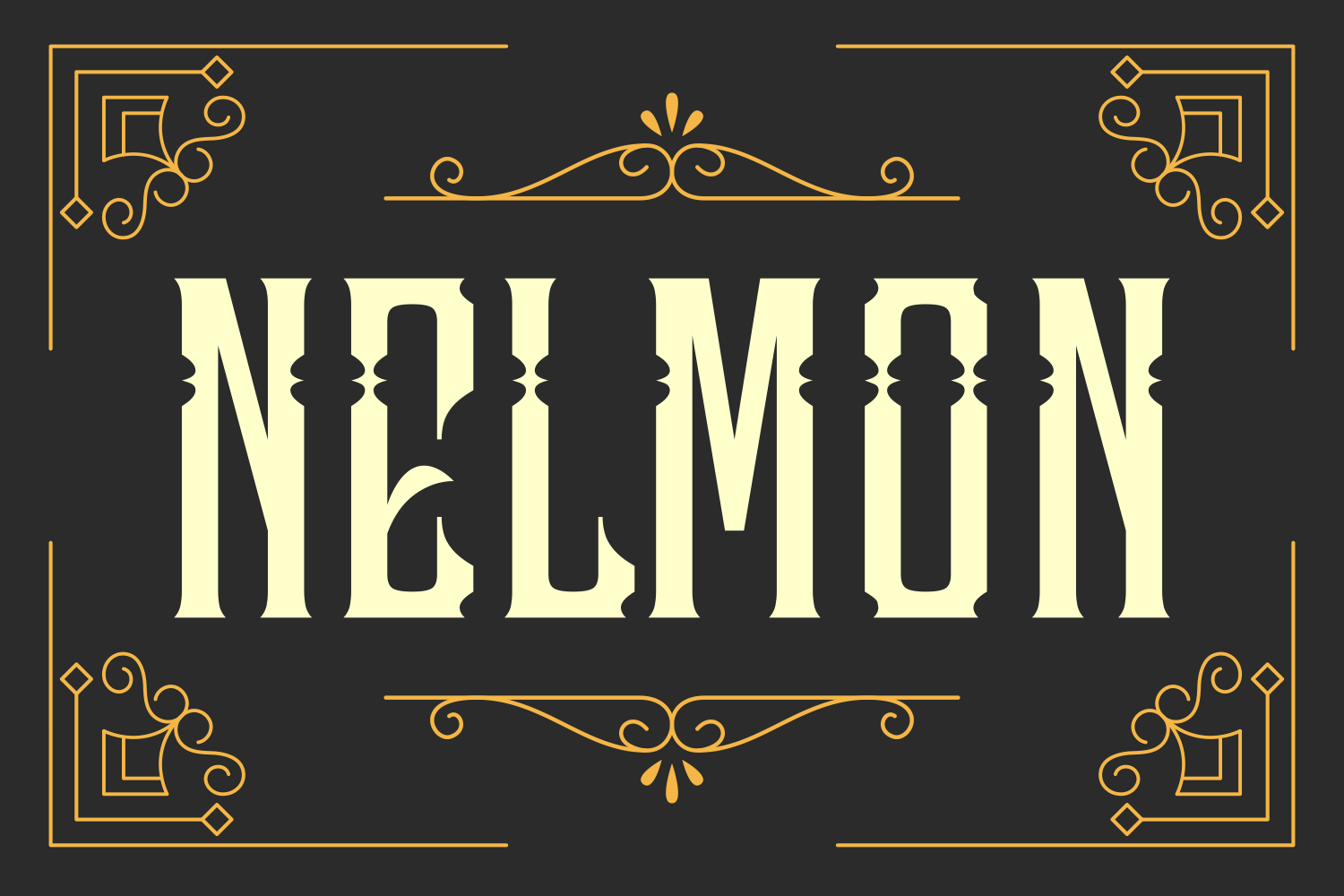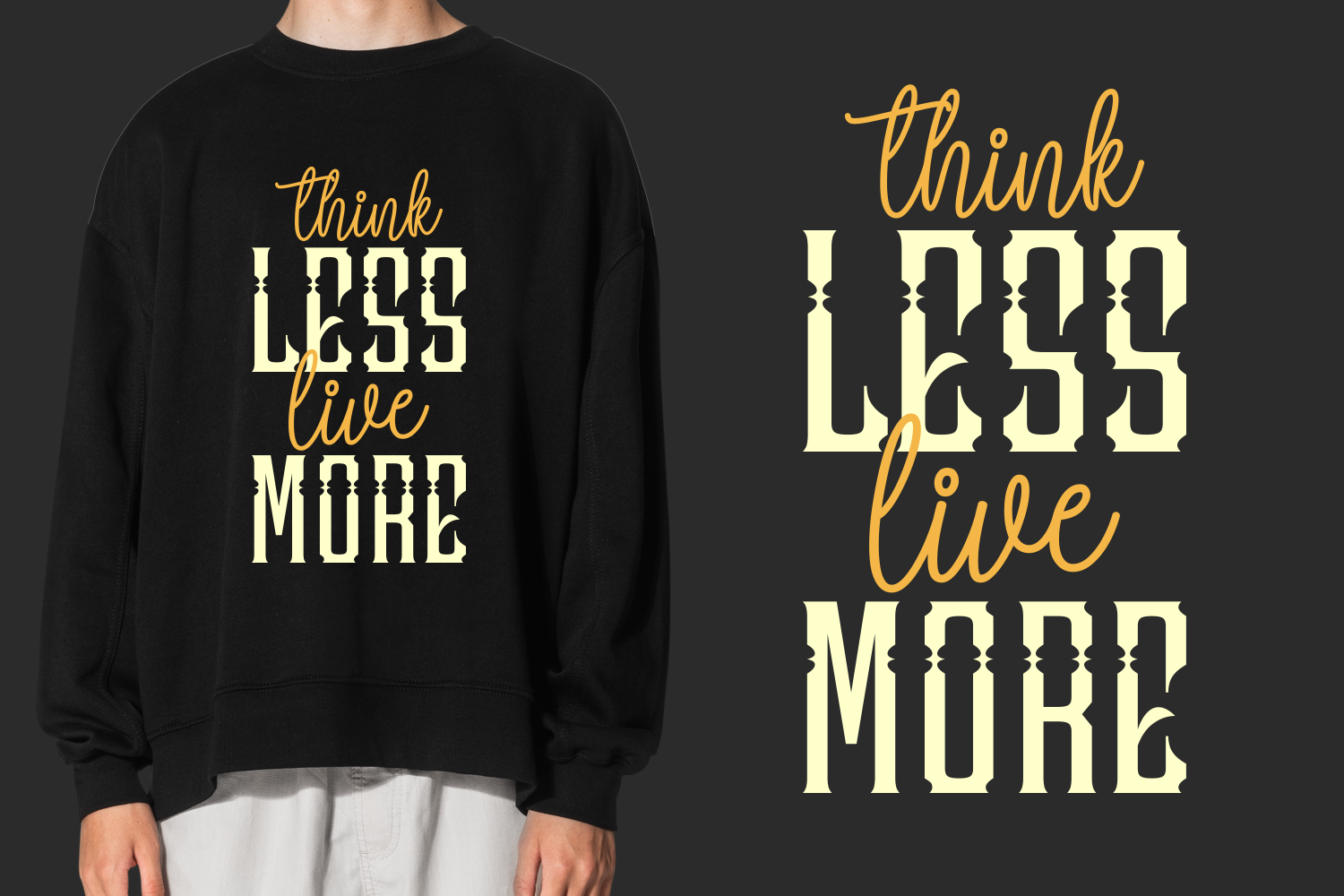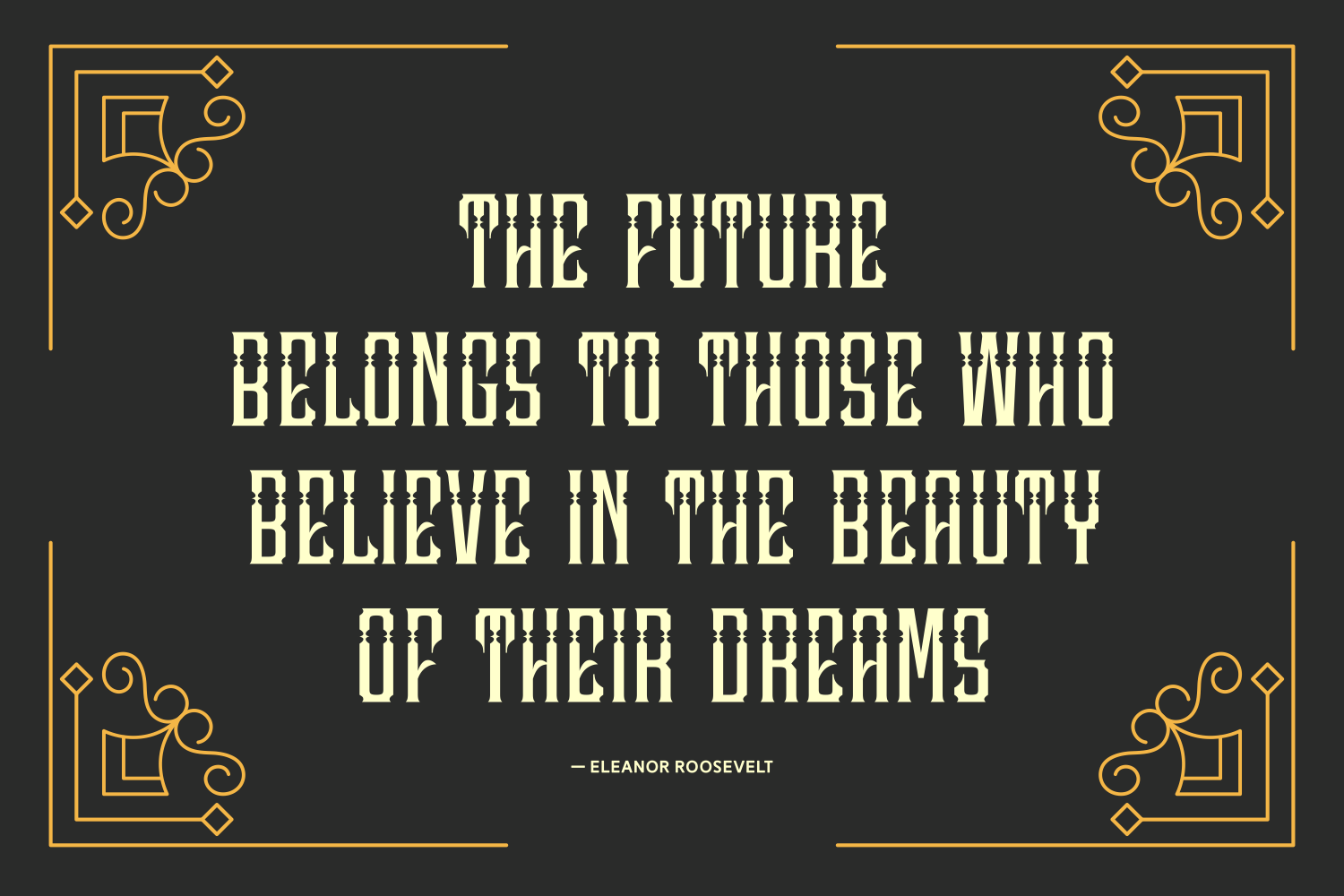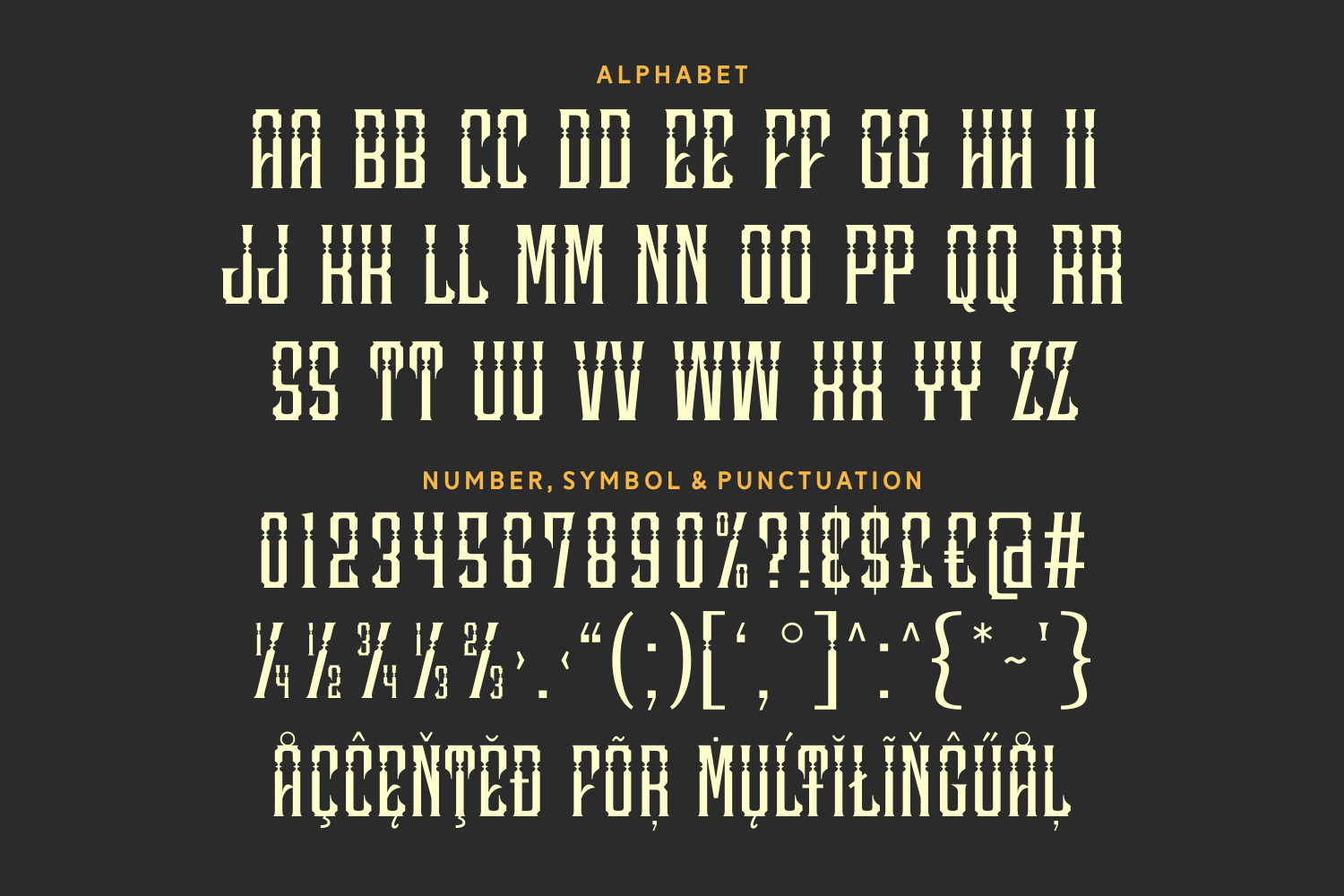
Nelmon is a decorative blackletter font with tall, bold strokes and striking mid-letter ornamentation. Its dramatic silhouette makes it perfect for western posters, vintage branding, headlines, or any design needing a touch of theatrical flair and strength.